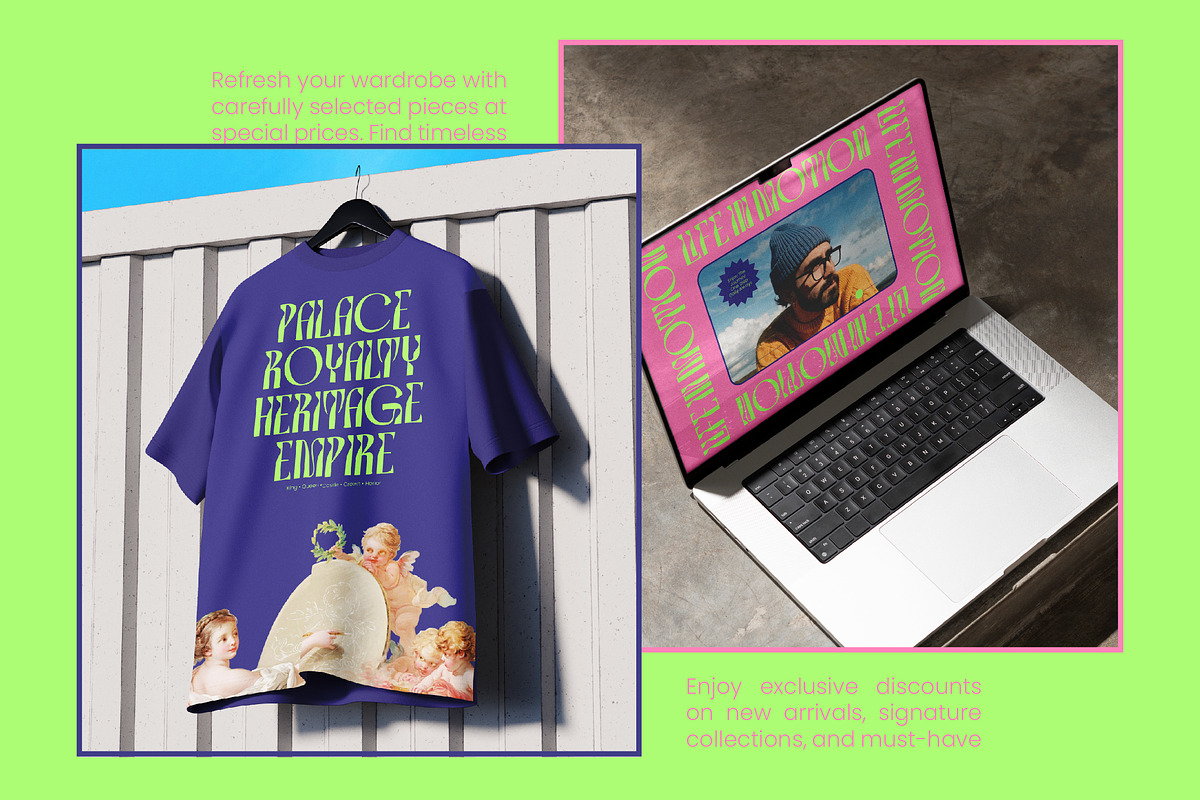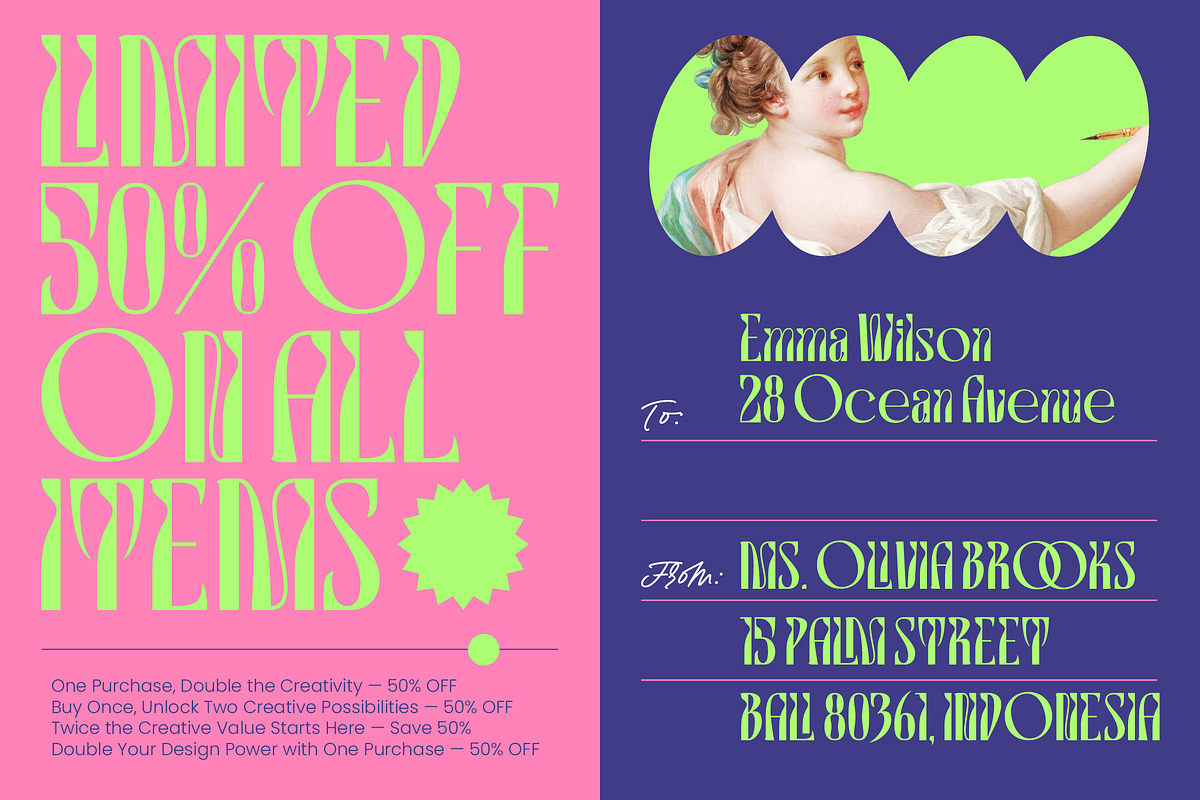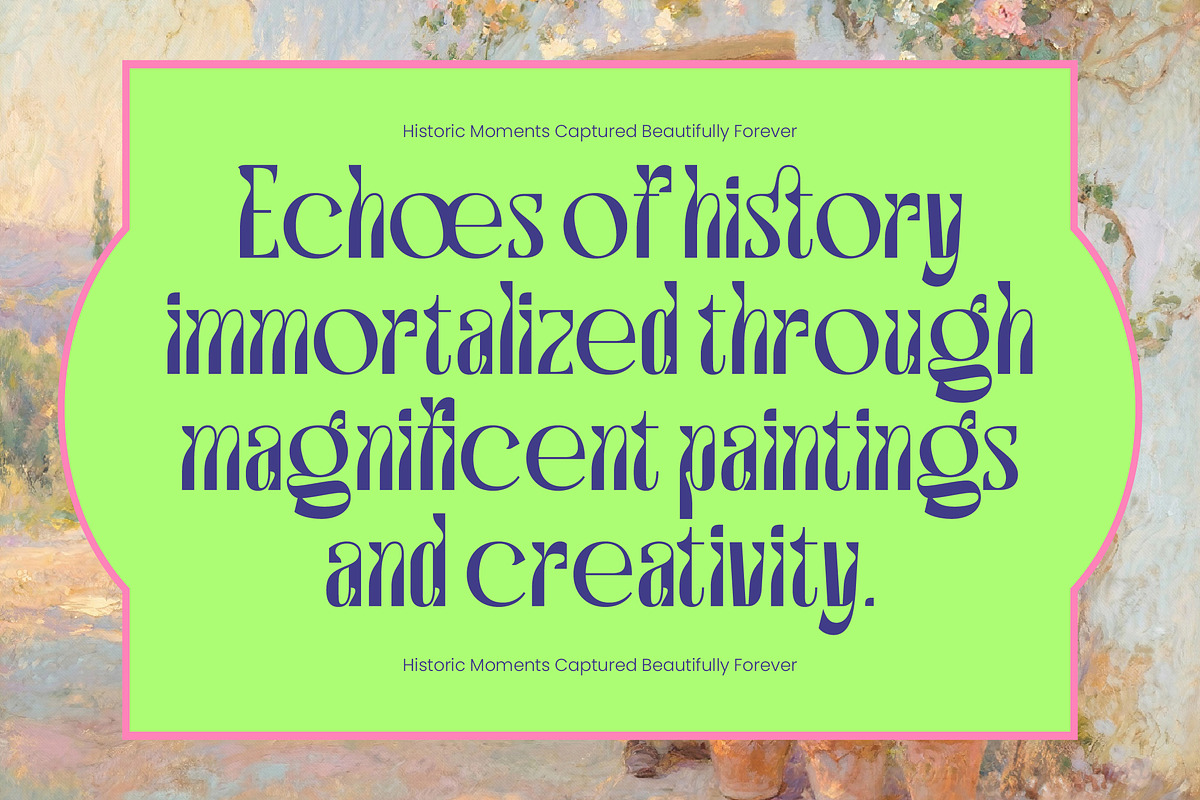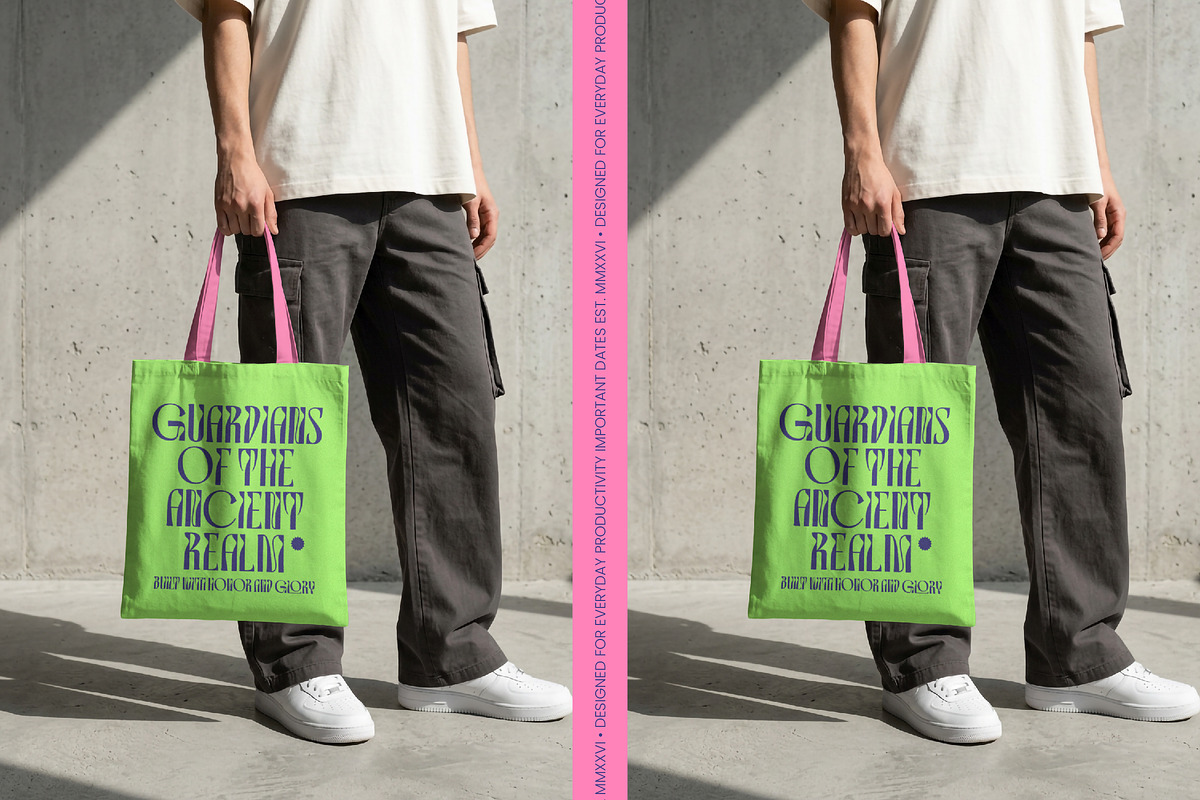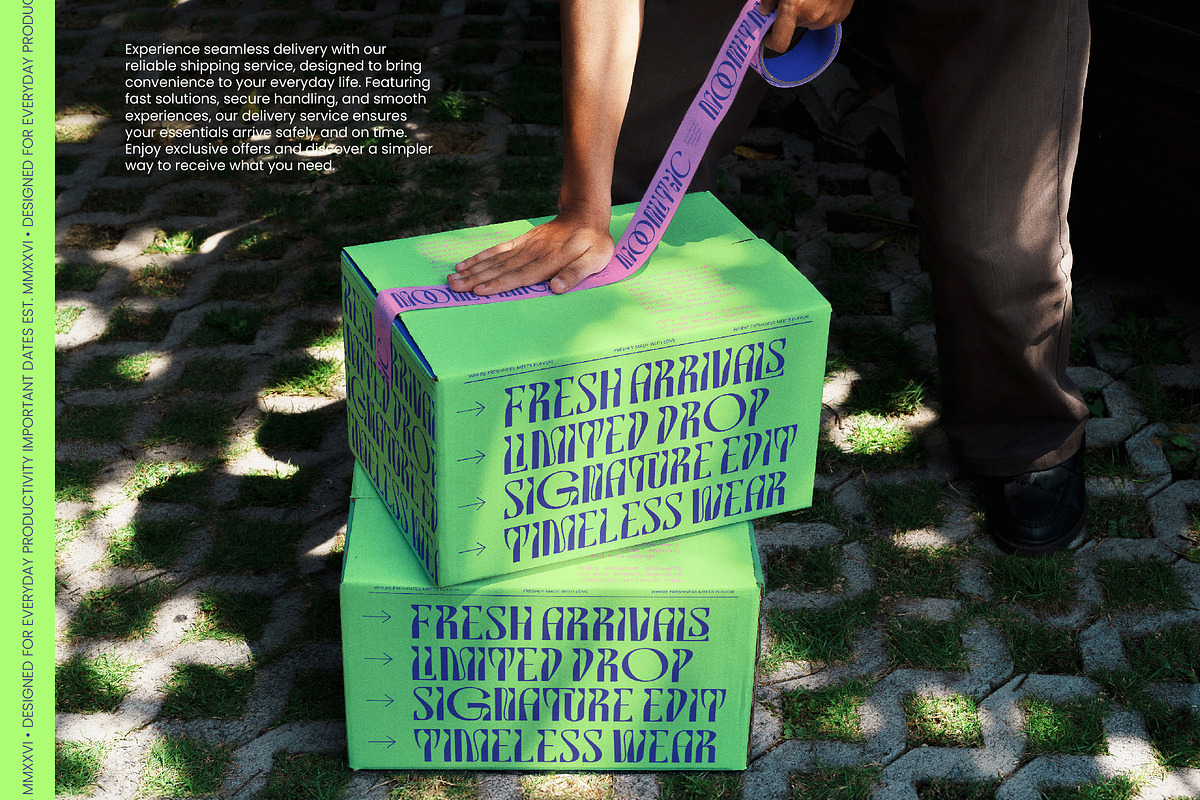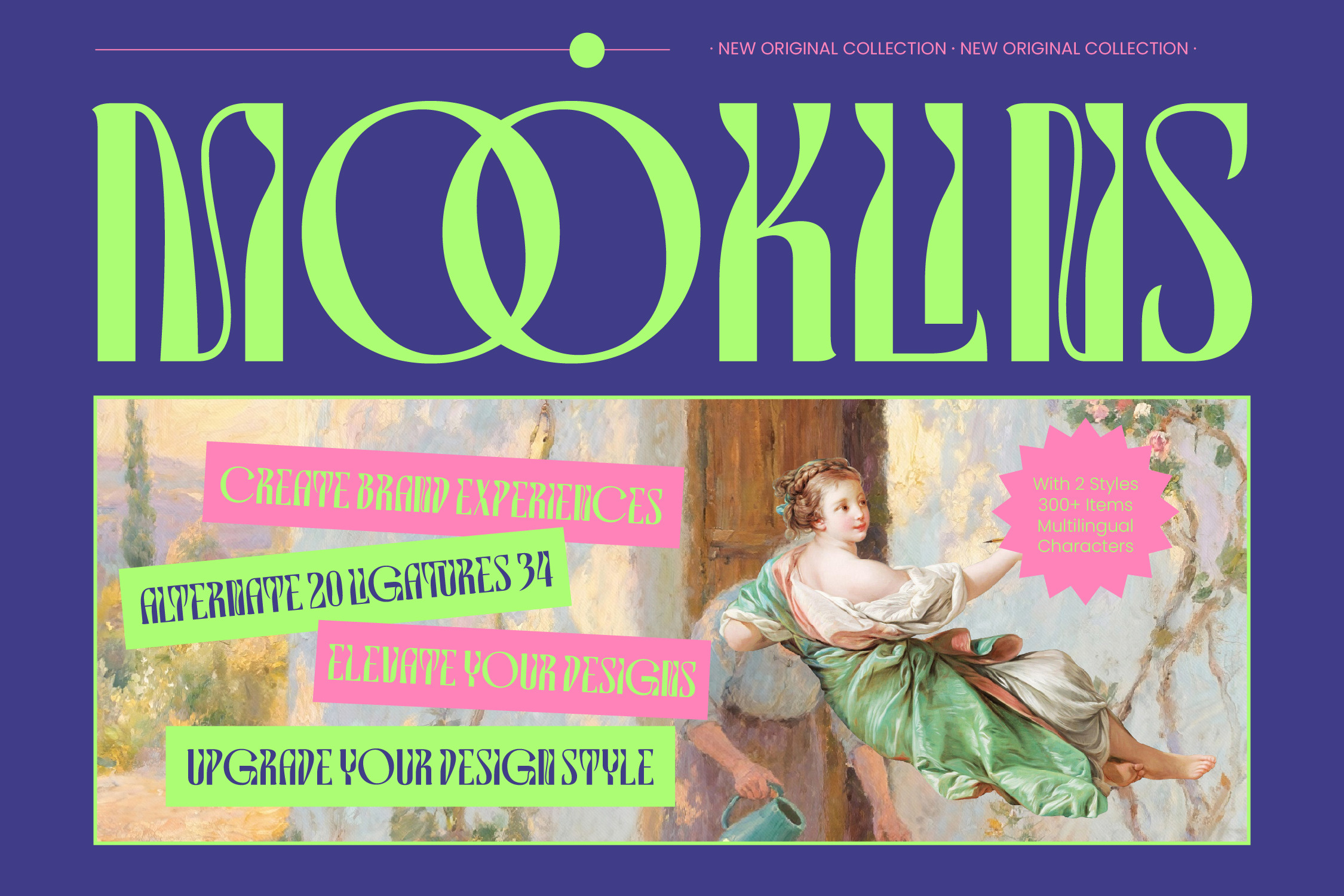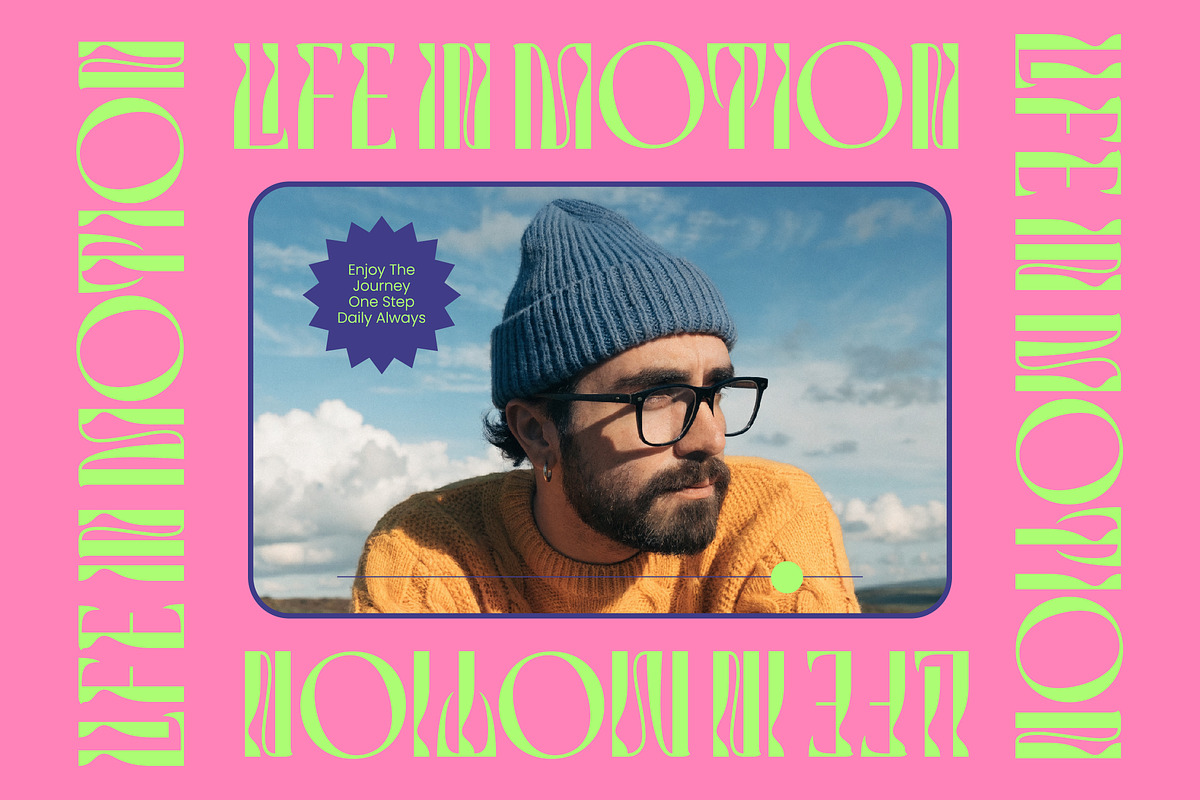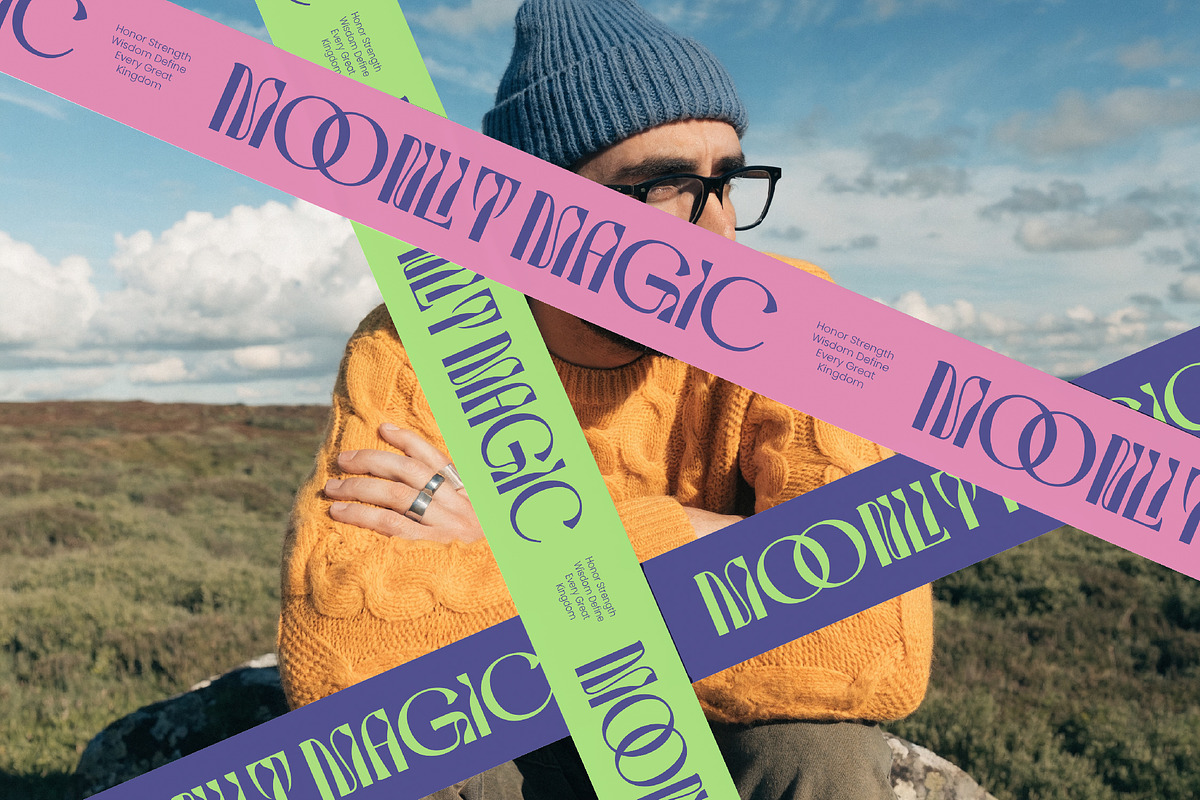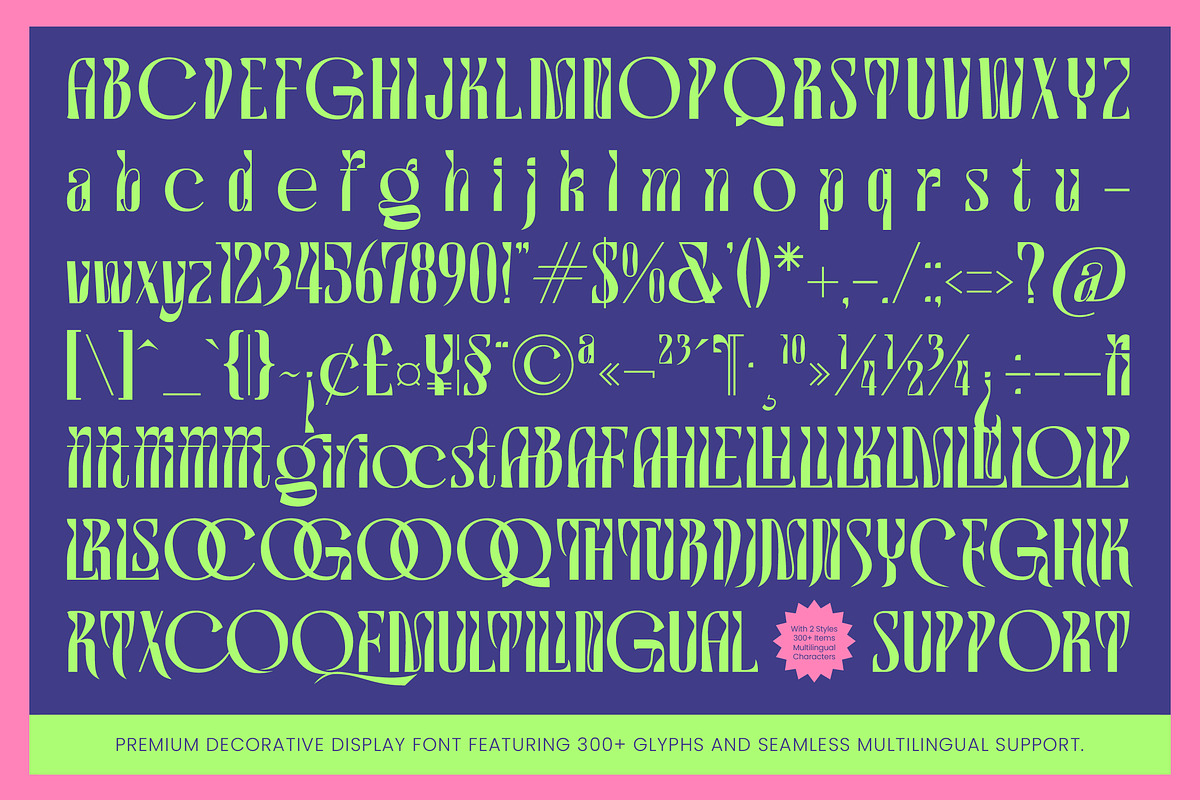
Mooklins Decorative Display Font
Mooklins - Decorative Display Font , Elevate your creative vision with a typeface that embodies artistic fluidness and modern elegance. Mooklins - Decorative Display Font is a masterpiece of contemporary typography, blending high-contrast strokes with organic, flowing forms. This decorative display font captures a unique psychedelic aesthetic while maintaining a sense of luxury and sophistication. It is designed to command attention and transform standard layouts into bold visual statements.
Experience unparalleled creative flexibility with a toolkit built for the modern designer. Featuring over 34 unique ligatures and 20 stylistic alternates, Mooklins - Decorative Display Font offers endless possibilities for customization. With its extensive multilingual support, Mooklins - Decorative Display Font adapts seamlessly across global markets, making it incredibly versatile for international projects. This comprehensive character set ensures that your message remains consistent and impactful across borders.
Redefine the boundaries of your next high-end project with this versatile design asset. Mooklins - Decorative Display Font is perfect for luxury branding, premium packaging, editorial design, and avant-garde fashion posters. Whether you are crafting a vogue-style magazine layout or a sophisticated brand identity, this font provides the visual gravity needed for a professional finish. It excels in large-scale applications where its expressive curves and elegant proportions can truly shine.